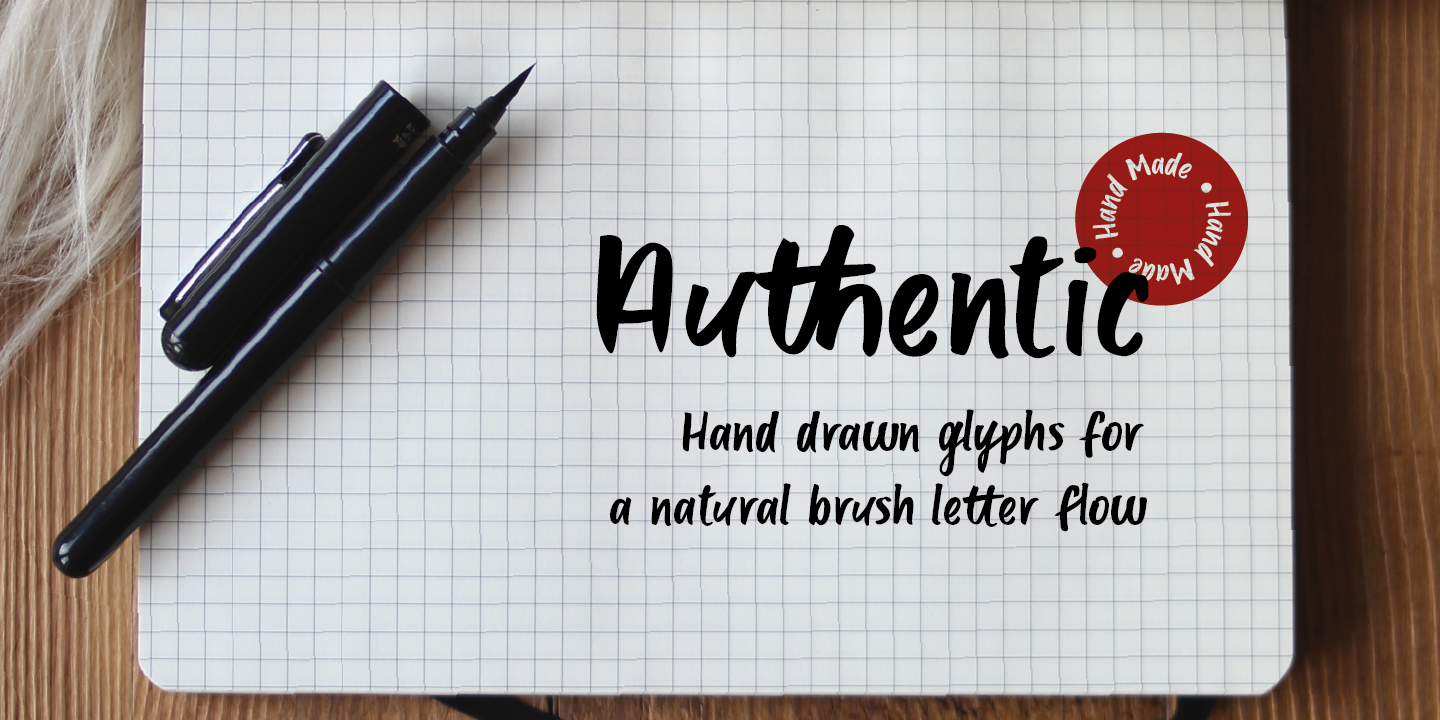
Deft Brush Font is perfect for artistic logos, handcrafted product packaging, creative social media posts, inspirational quotes, craft beer labels, organic food branding, boutique fashion designs, and expressive greeting card layouts.
Deft Brush Font is exciting because it captures the authentic texture and spontaneous energy of traditional brush lettering while maintaining the precision and consistency required for professional design applications. This typeface brings the organic warmth of hand-painted signage into the digital realm, offering designers a powerful tool for creating genuine, human-centered visual communications.
The Deft Brush Font family includes Regular, Bold, Light, and Condensed variations, along with decorative swashes and contextual alternates. Each family member preserves the natural brush stroke characteristics while providing comprehensive coverage for diverse design needs and typographic hierarchies.
Deft Brush Font represents the perfect balance between artistic expression and commercial functionality. Its hand-lettered appearance immediately communicates authenticity and craftsmanship, making it particularly valuable for brands seeking to establish personal connections with their audiences. The font's organic imperfections and natural flow create an approachable, human quality that resonates strongly in today's digital landscape.
The versatile nature of Deft Brush Font makes it exceptionally suitable for lifestyle and creative industry applications. Artisan brands, coffee shops, creative agencies, wellness companies, and independent makers frequently choose this font to convey their handcrafted values and artistic sensibilities. Its ability to suggest both professionalism and creativity makes it ideal for businesses bridging traditional craftsmanship with modern commerce.
Typography enthusiasts recognize Deft Brush Font Free Download for its authentic brush texture and carefully preserved painting characteristics. The font's letterforms retain the natural variations and pressure changes found in genuine brush lettering, creating visual interest and organic rhythm that mechanical fonts cannot replicate. This authenticity makes it invaluable for projects requiring genuine artistic credibility.
The digital optimization of Deft Brush Font ensures excellent performance across all modern platforms while preserving its handcrafted character. Whether applied to website headers, mobile app interfaces, or social media graphics, the font maintains its artistic integrity while delivering reliable technical performance and cross-platform compatibility.
Modern branding increasingly values authenticity and human connection over corporate perfection. Deft Brush Font provides designers with a powerful tool for creating these meaningful connections through typography. Its expressive character and organic warmth help brands communicate their values and personality in ways that feel genuine and approachable.